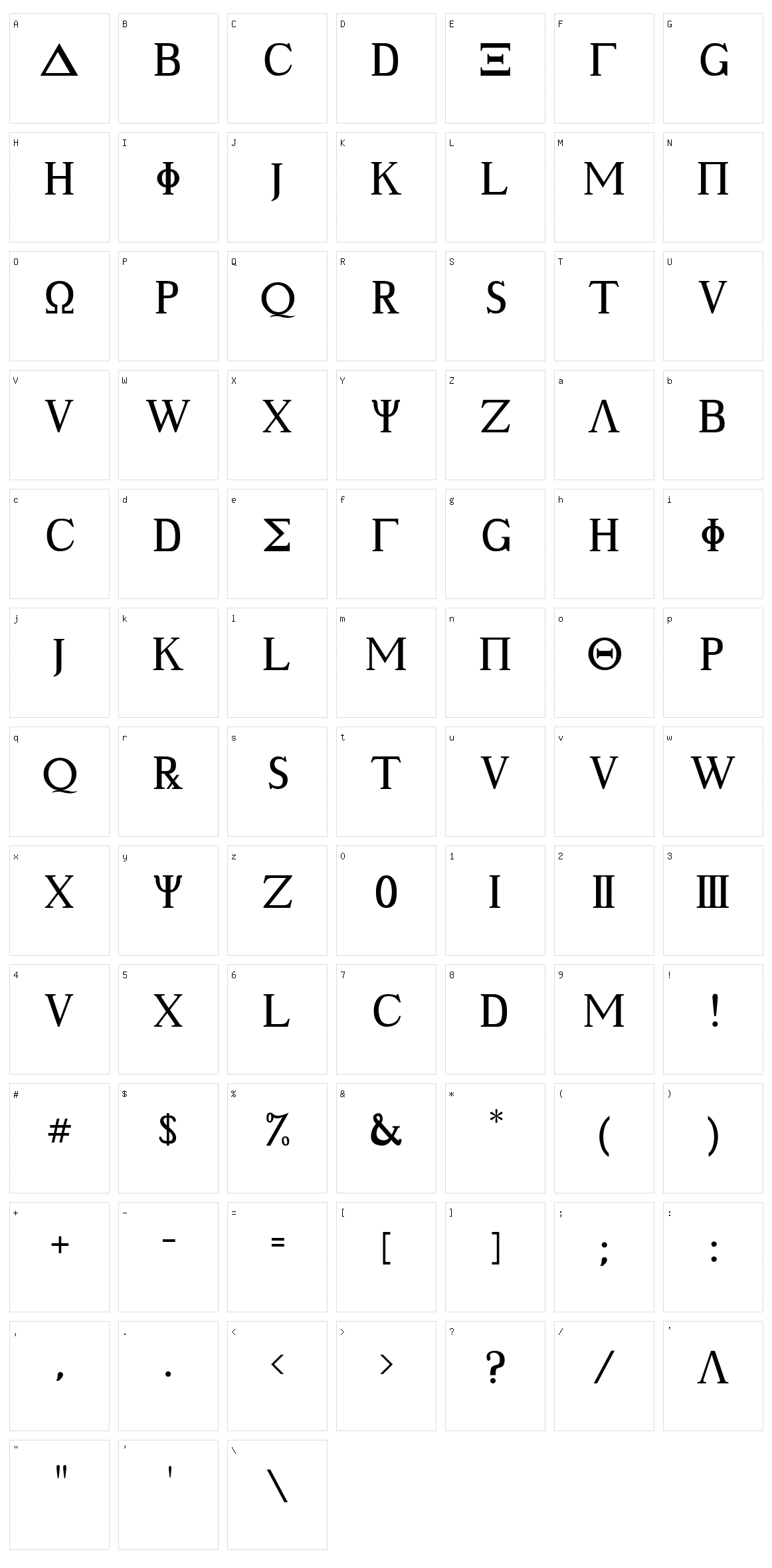
Font: Ancient Geek
Created By: Matthew Welch
About the font:
Have you ever tried to read Greek lettering (like the name of a fraternity)
pronouncing each letter like the Latin letter it looks like instead of how the
Greek letter is supposed to be pronounced? That is what this font is based on.
I took all the Greek letters and matched them up with the Latin alphabet
letters they look like. Delta, for instance, shows up as an A. I threw out
all the Greek letters that didn't look like anything and filled in the
remaining characters with the regular Latin alphabet. The result is that you
can type out a phrase and it will look like Greek lettering while being
perfectly readable English.
I called the font Ancient Geek because it's not quite Ancient Greek. Get it?